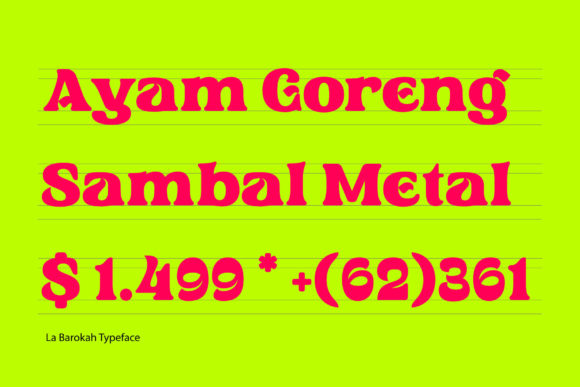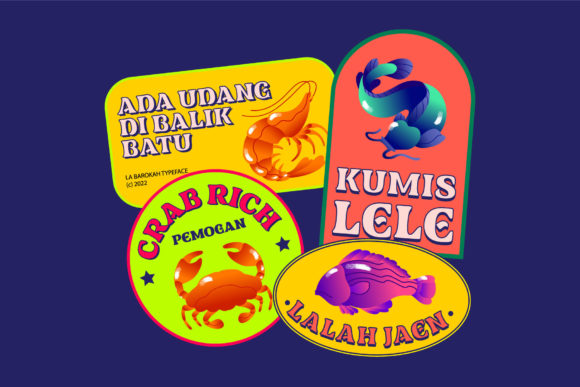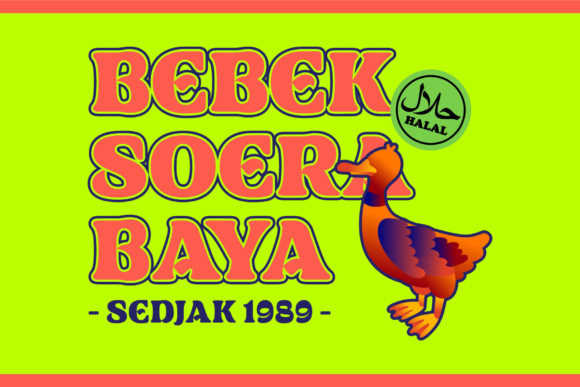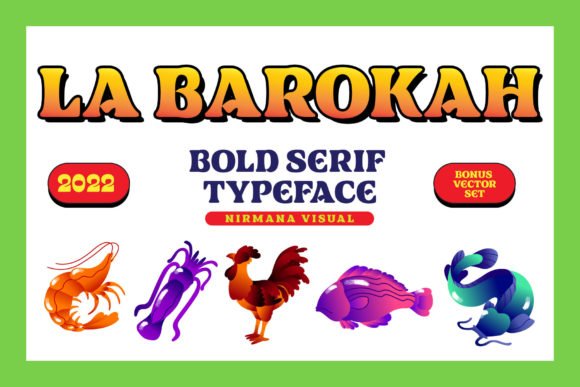
Introduction to La Barokah Font
La Barokah is a cool, bold and thick lettered display font.
It will elevate a wide range of crafting ideas, from cards, to branding, labels and much more Add it confidently to your favorite creations and let yourself be amazed by the outcome generated.
Key Features of La Barokah Font
Why Choose La Barokah Font?